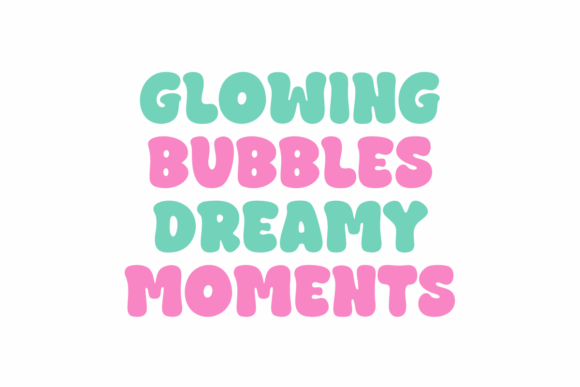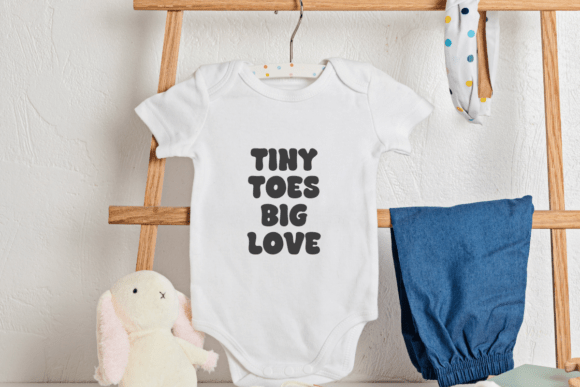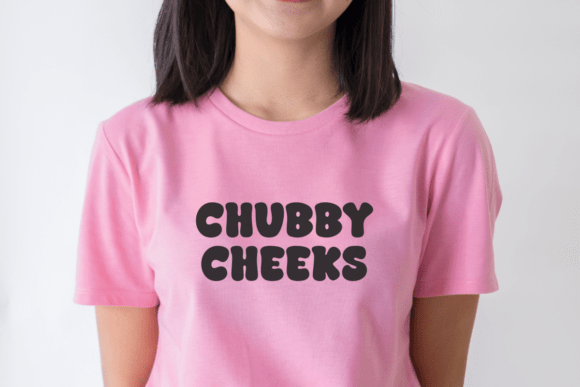
Bubble Sorbet Font
Discover the sheer joy of creativity with the charming Bubble Sorbet: a whimsically designed, handmade bubble font. Ideal for an array of crafting applications, Bubble Sorbet adds a delightful touch to everything from t-shirts to greeting cards, wall hangings to key chains. Its playful shape is perfect for adding a spark of innocent fun to quotes and branding, and makes for a unique companion for your birthdays, tote bags, mugs, and tumblers projects. When it comes to making everyday items radiate with sweet charm, Bubble Sorbet is just the font to sprinkle that magic.